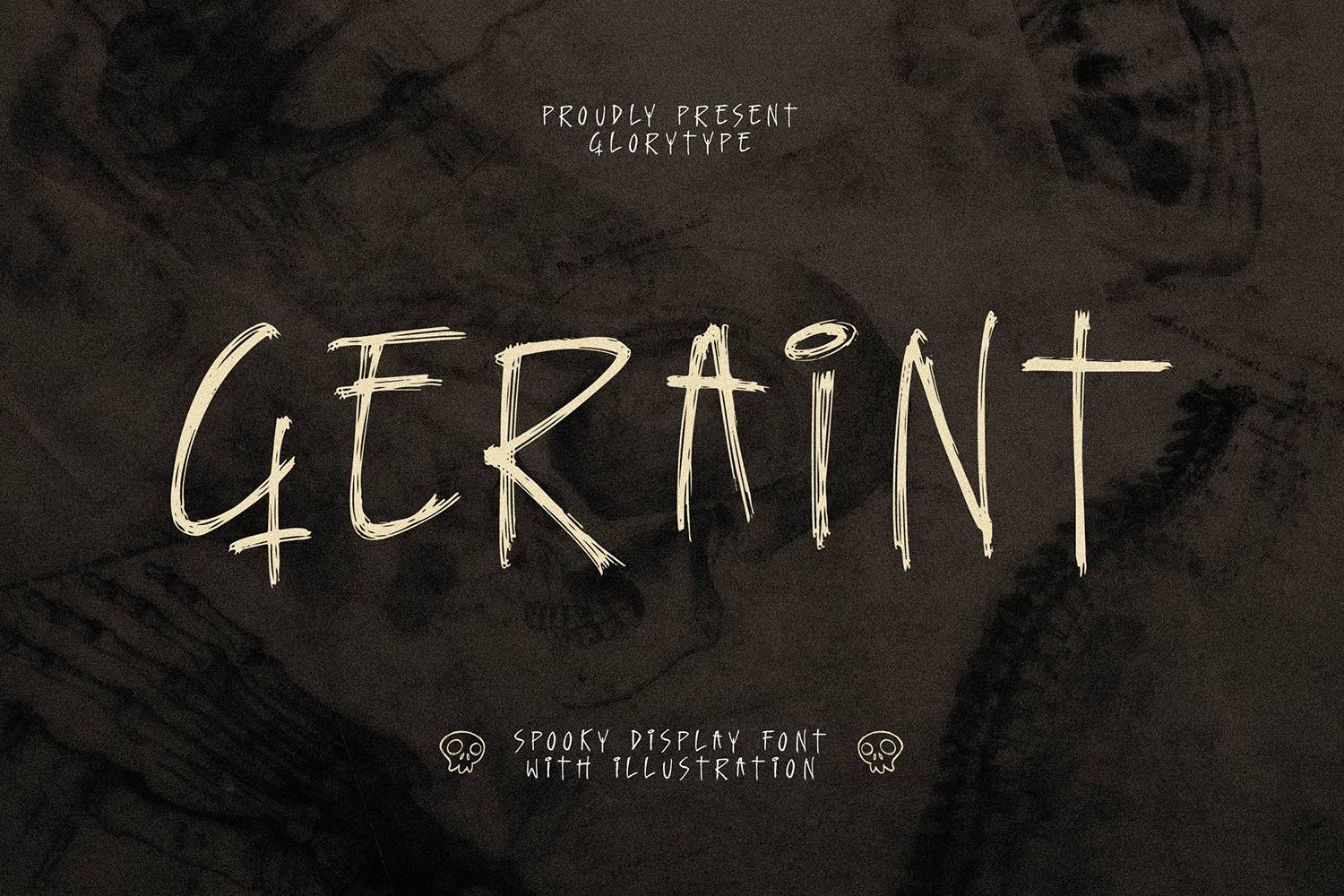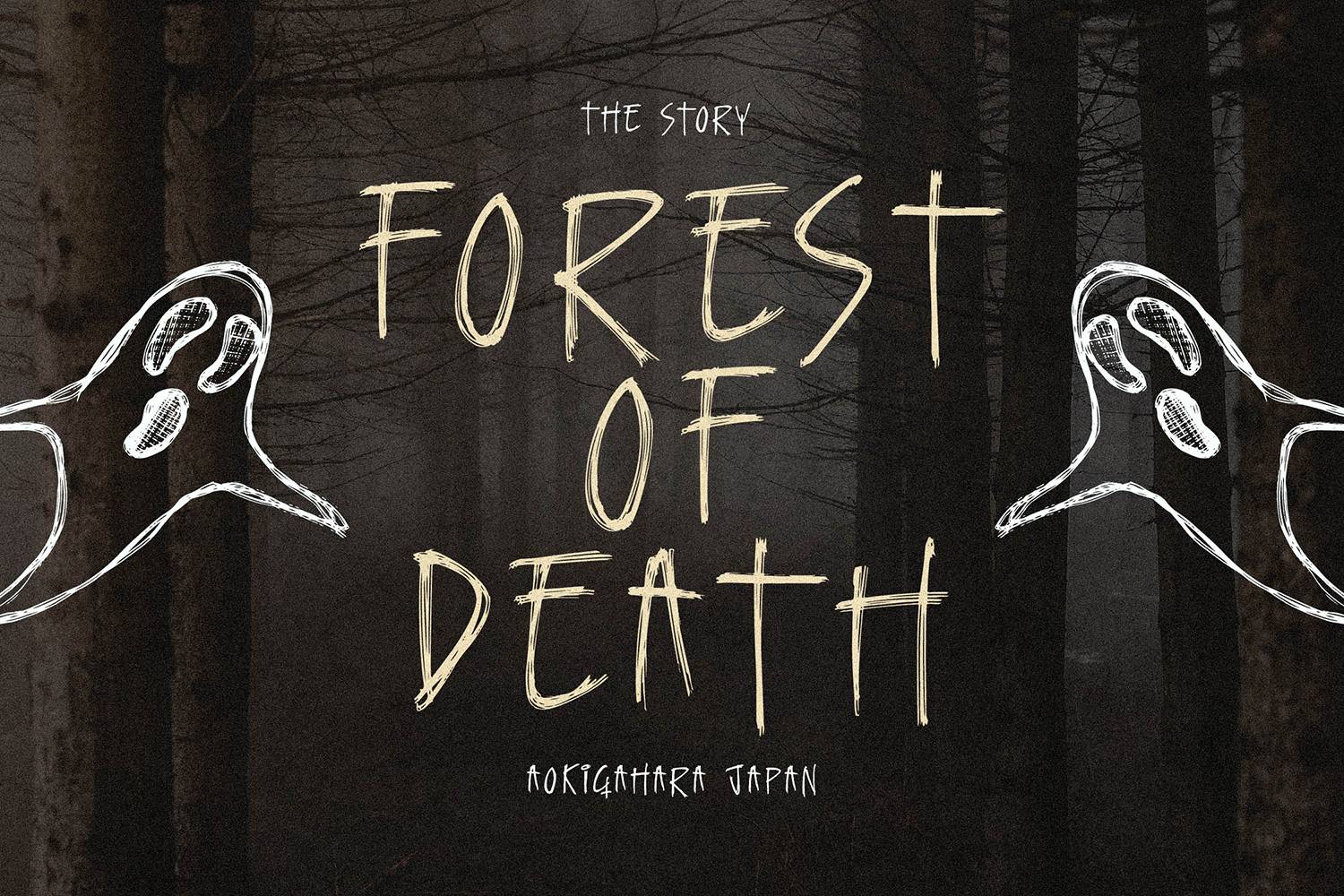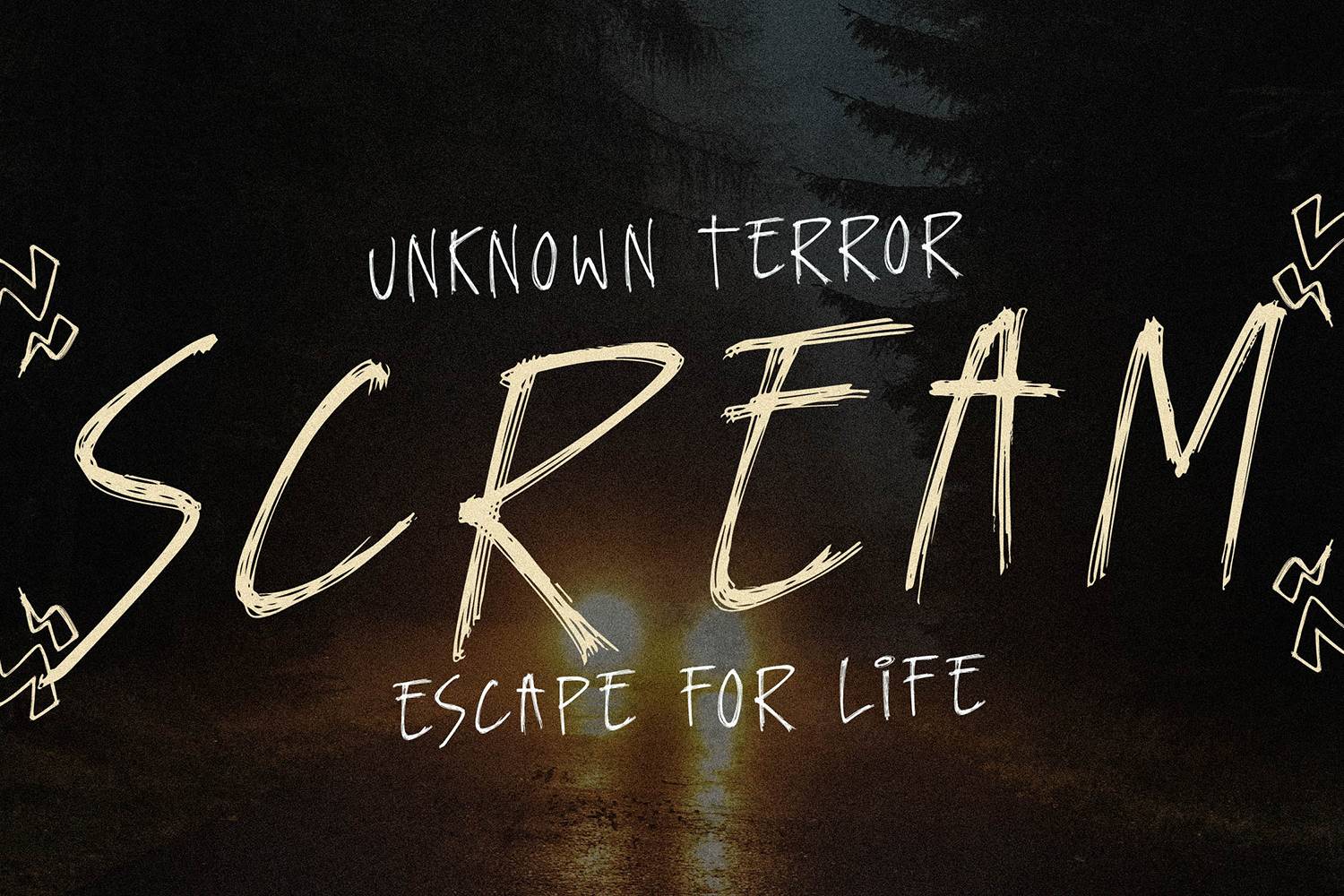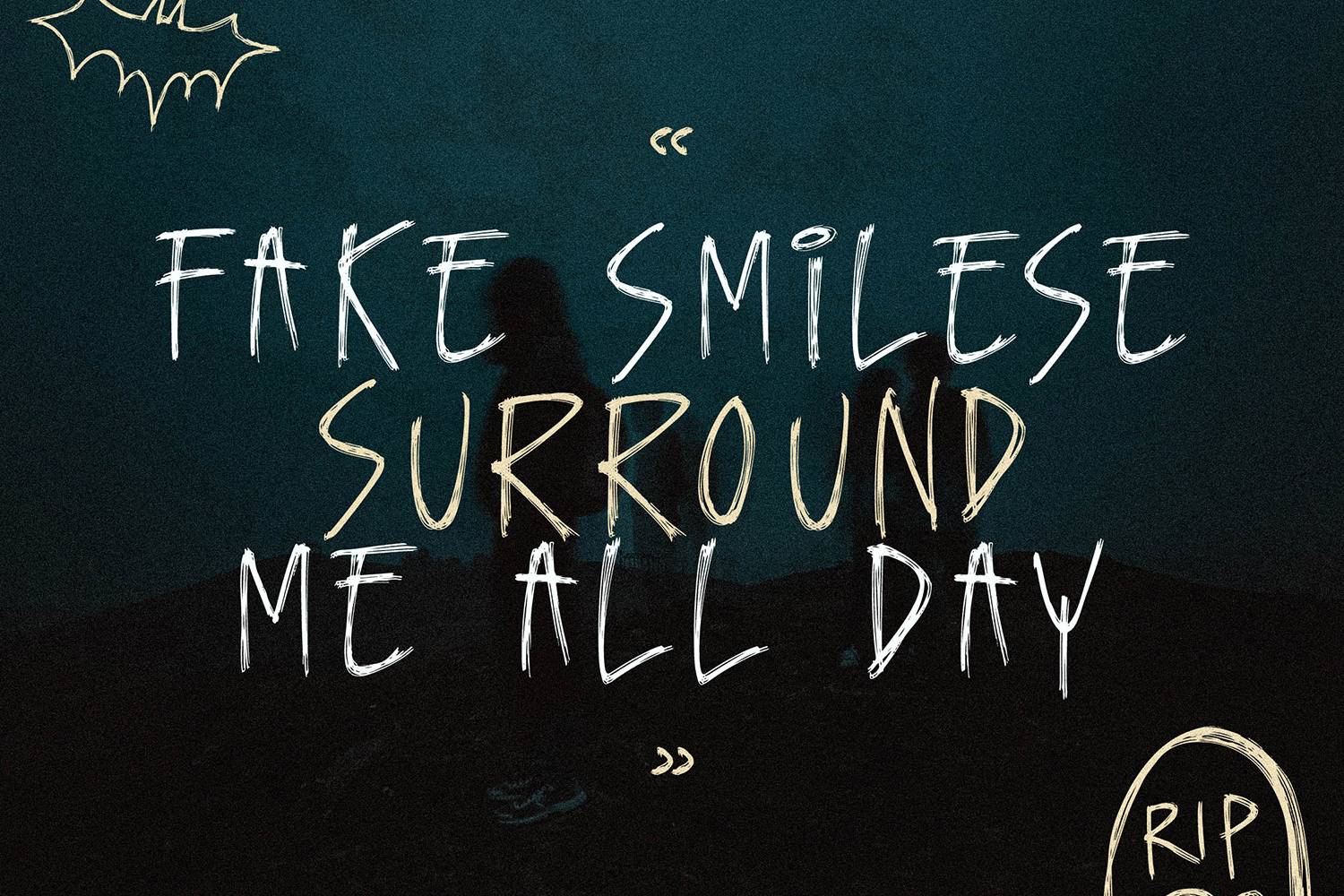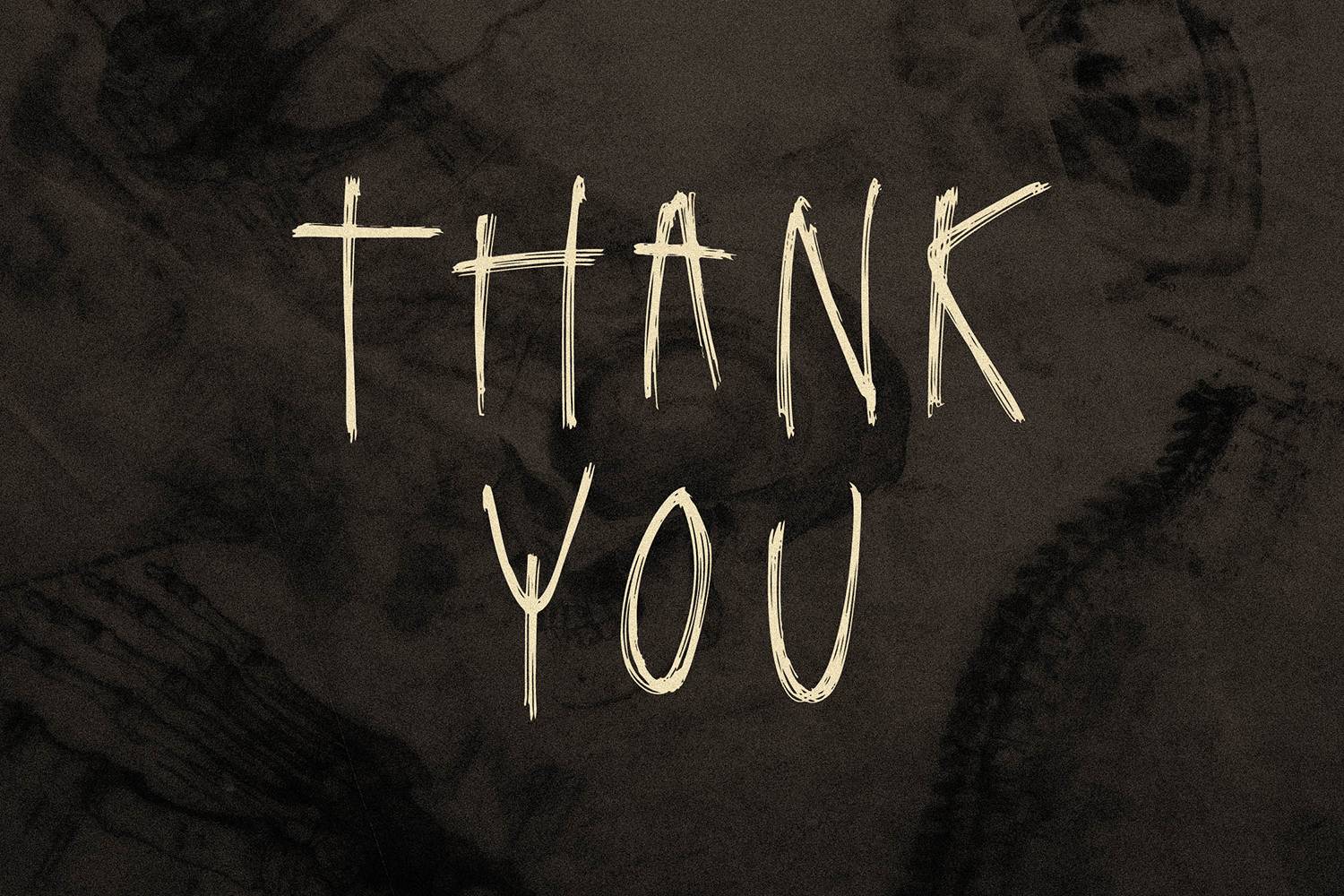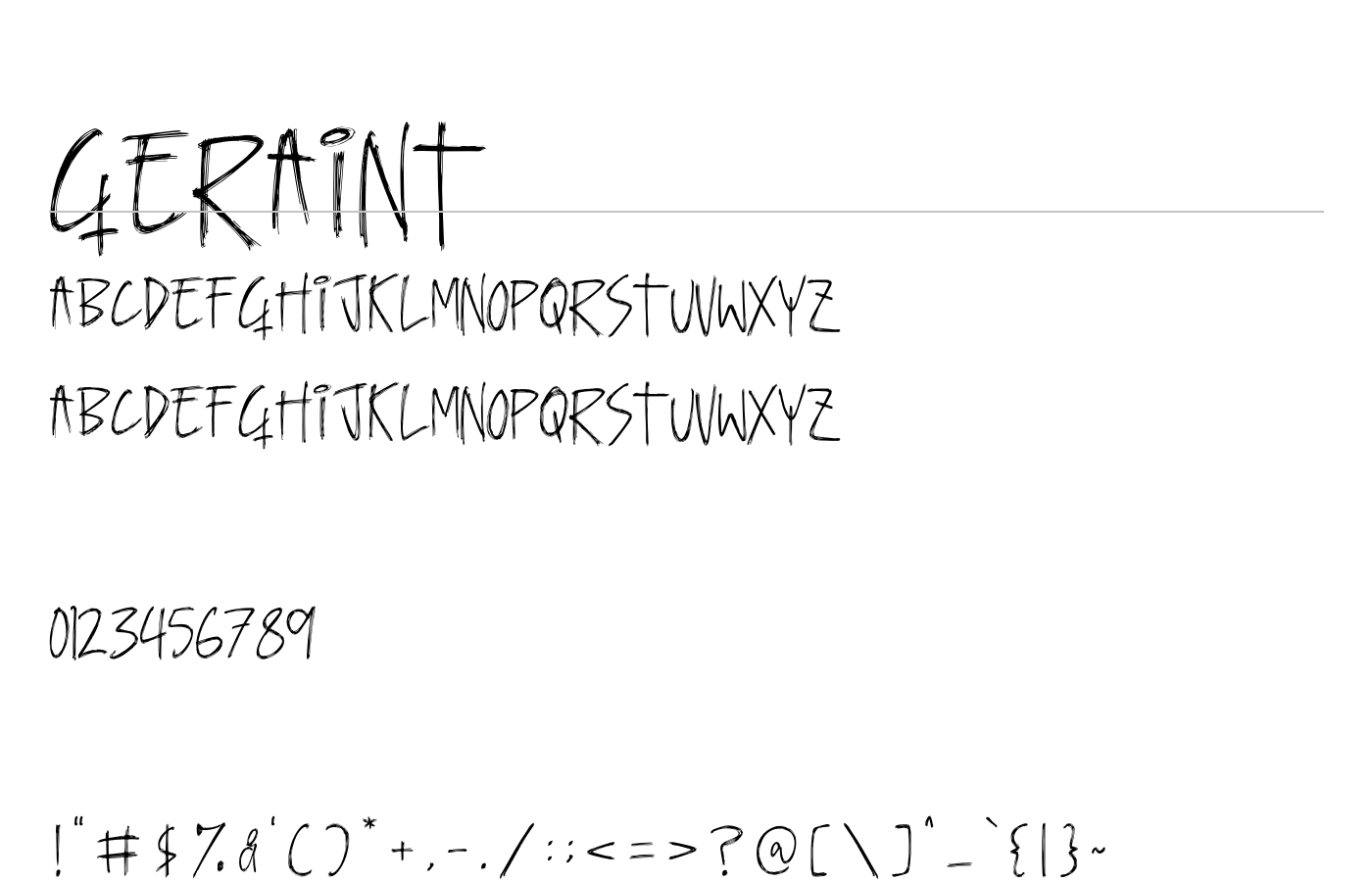
Geraint Font is a playful and quirky handwritten sans serif typeface with a tall, narrow stance and irregular, scratchy strokes that give it a raw, organic feel. Its uneven letterforms and casual style make it perfect for creative projects that want to convey a sense of individuality and artistic spontaneity, such as posters, personal branding, or designs targeting a youthful, informal audience. This font works best in display sizes where its unique personality can stand out and add a hand-crafted, expressive touch.
Geraint Font
About Geraint Font